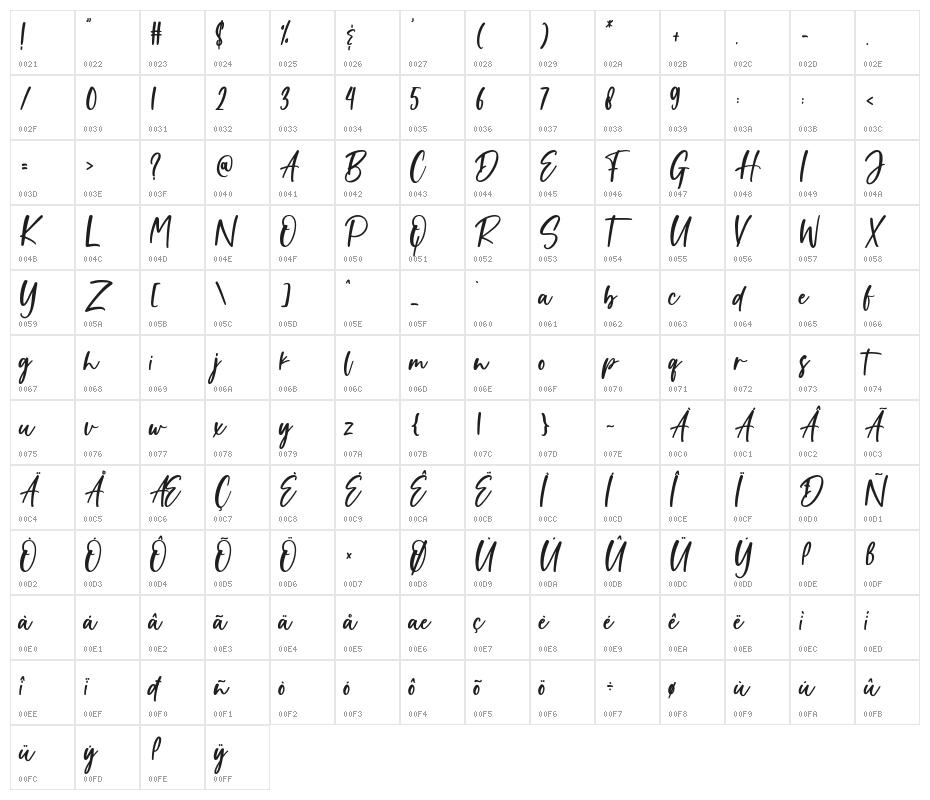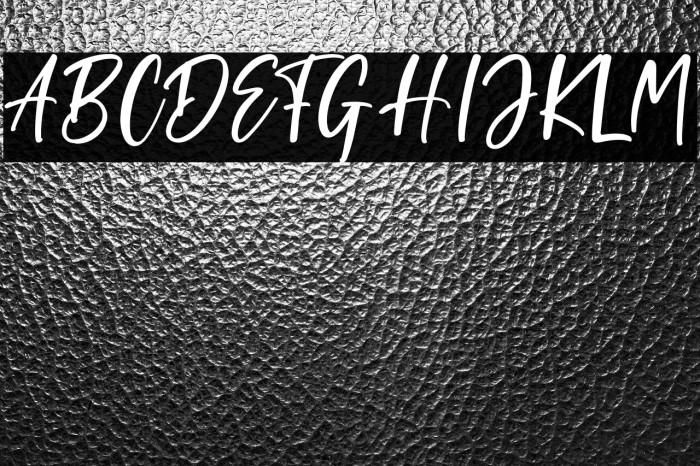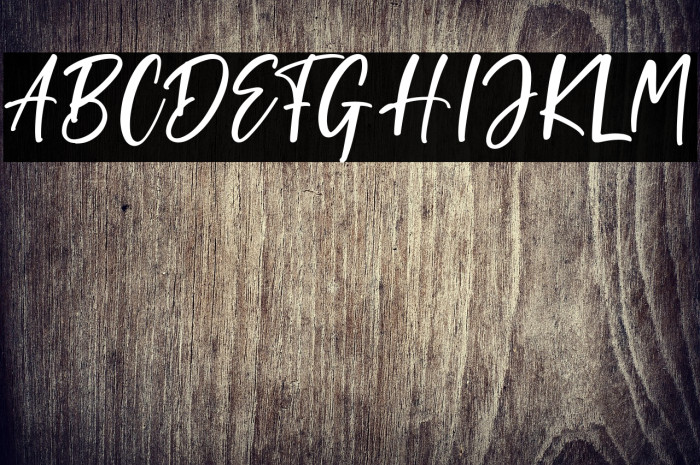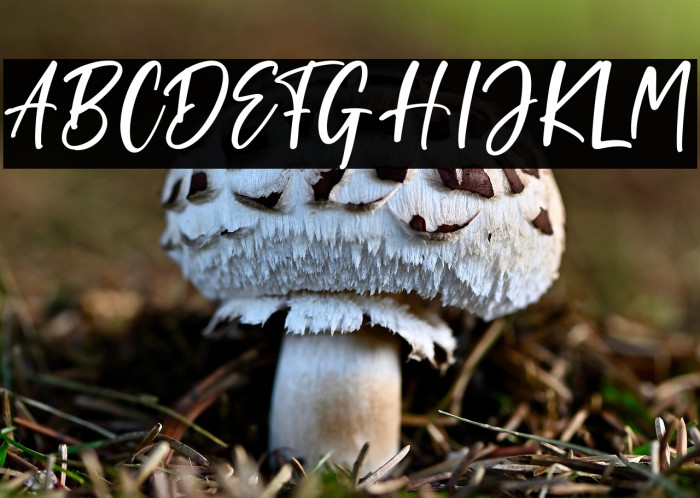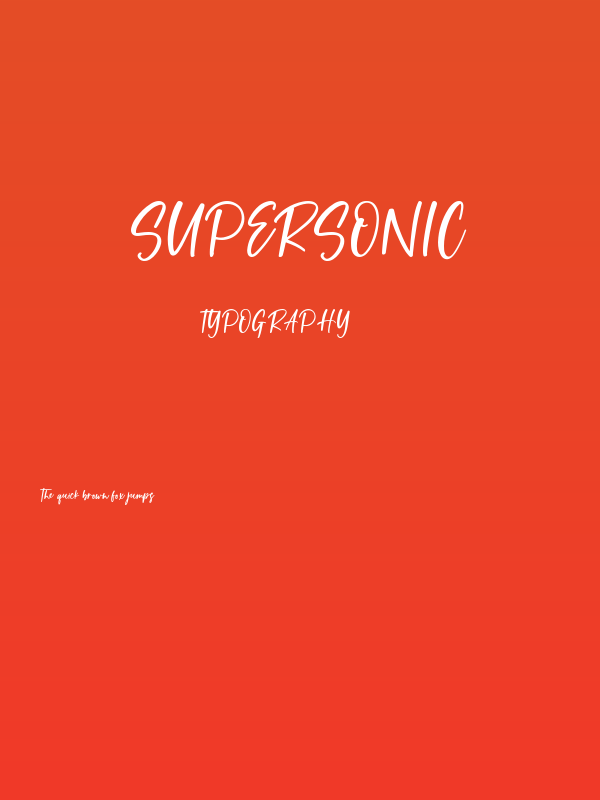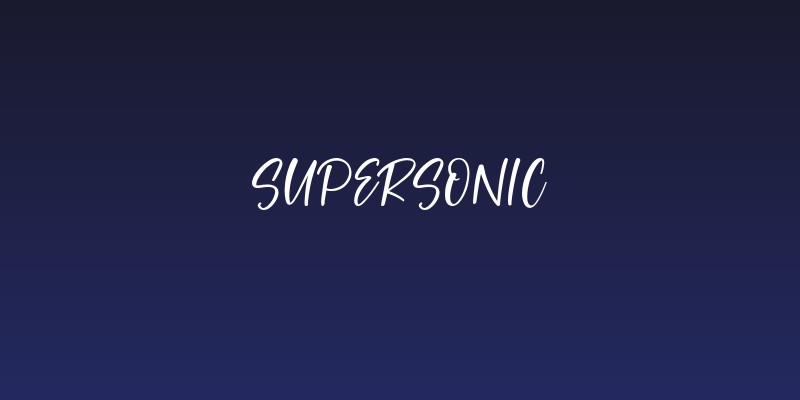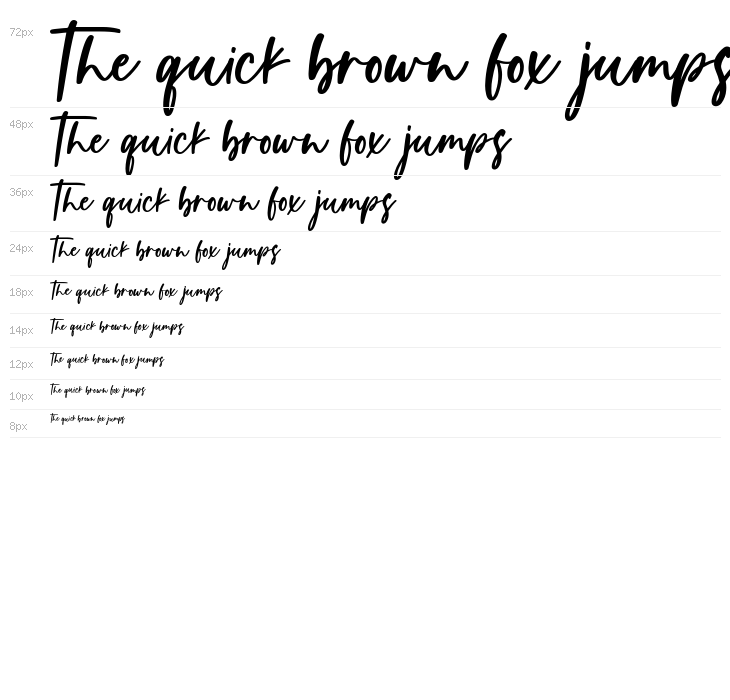
Supersonic Font
Supersonic Description
This font features a lively and dynamic handwritten style, characterized by its fluid and cursive letterforms. The uppercase letters are tall and slightly slanted, giving a sense of motion and energy. The lowercase letters maintain a consistent flow, with smooth curves and loops that enhance its handwritten appeal. Numbers are clear and legible, matching the overall style of the alphabet. Special characters are creatively integrated, maintaining the playful and informal tone of the font. This font is ideal for projects that require a personal touch, such as invitations, greeting cards, or branding materials that aim to convey friendliness and approachability.
| Proposed Projects | Ideal for invitations, greeting cards, branding materials, and any project needing a personal touch. |